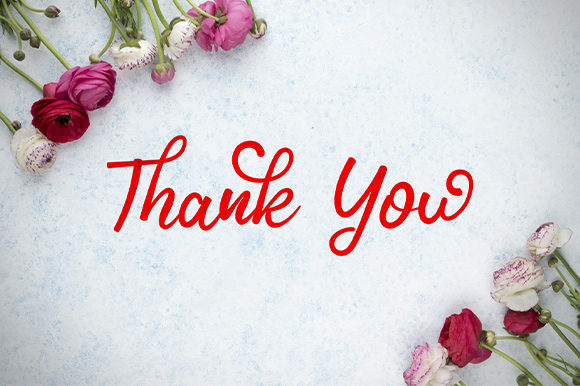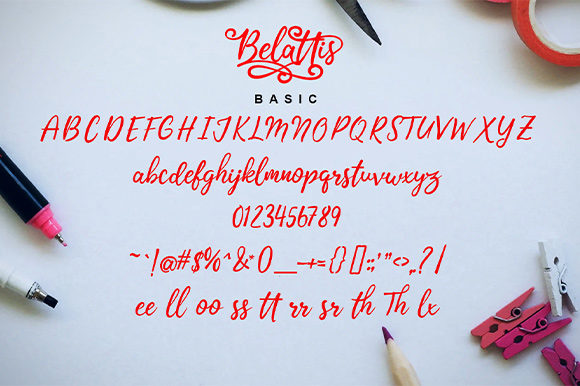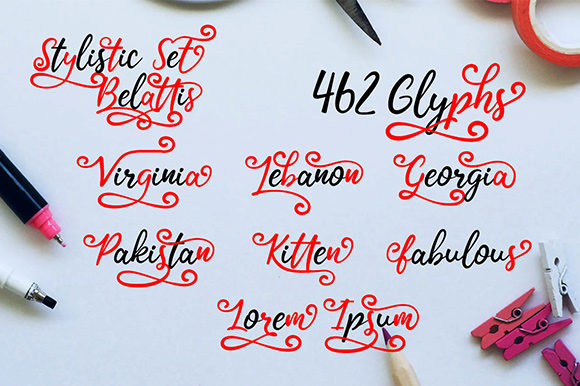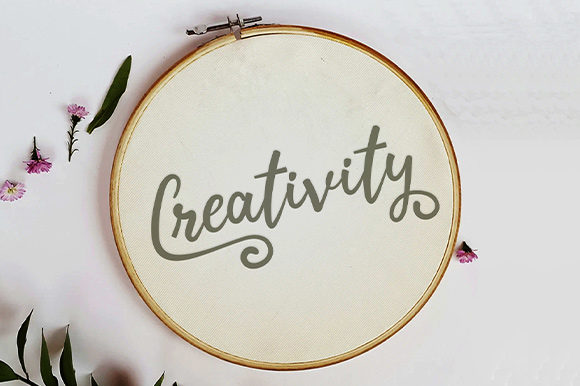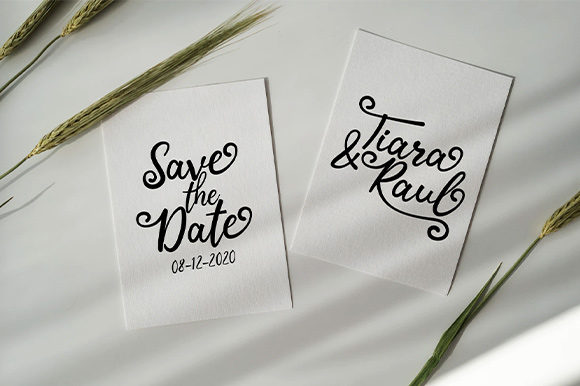
About Belattis Font
Belattis simplifies elegance into one truly outstanding handwritten font. It maintains its classy calligraphic influences while feeling contemporary and fresh. It will elevate a wide range of design projects to the highest level, be it branding, headings, wedding designs, invitations, signatures, logos, labels, and much more!